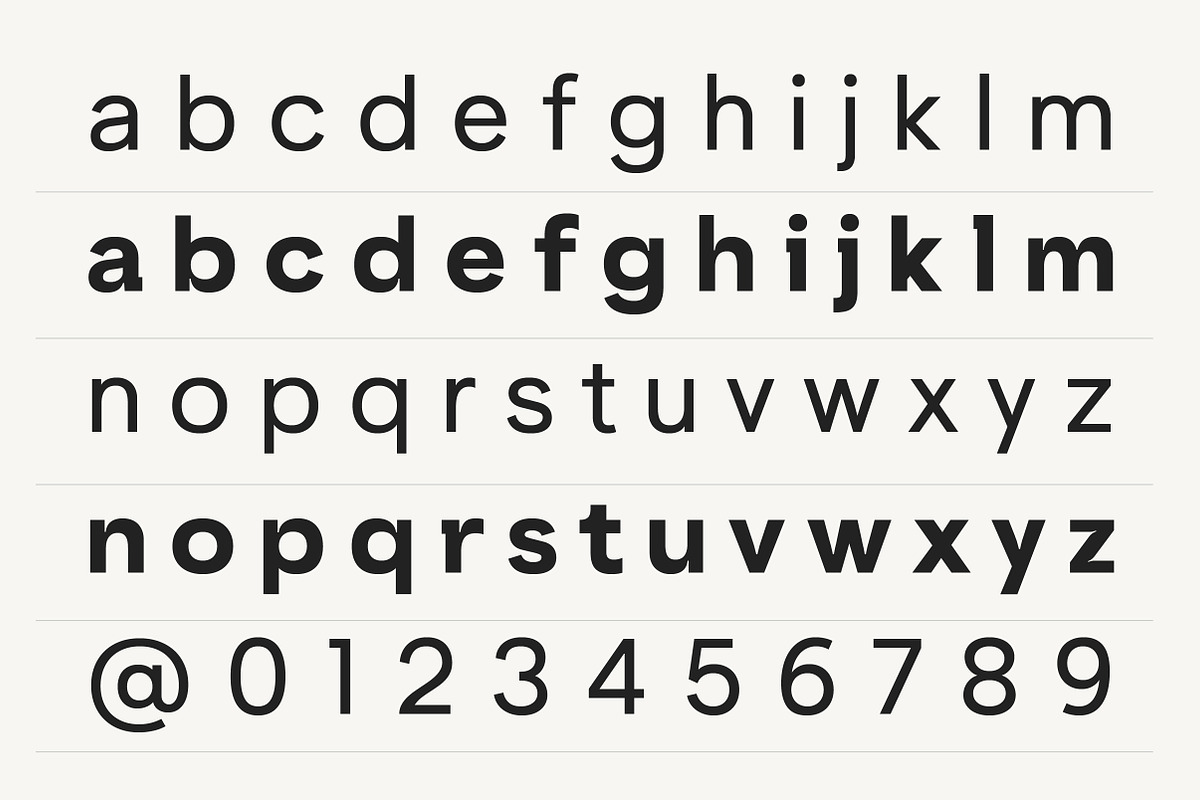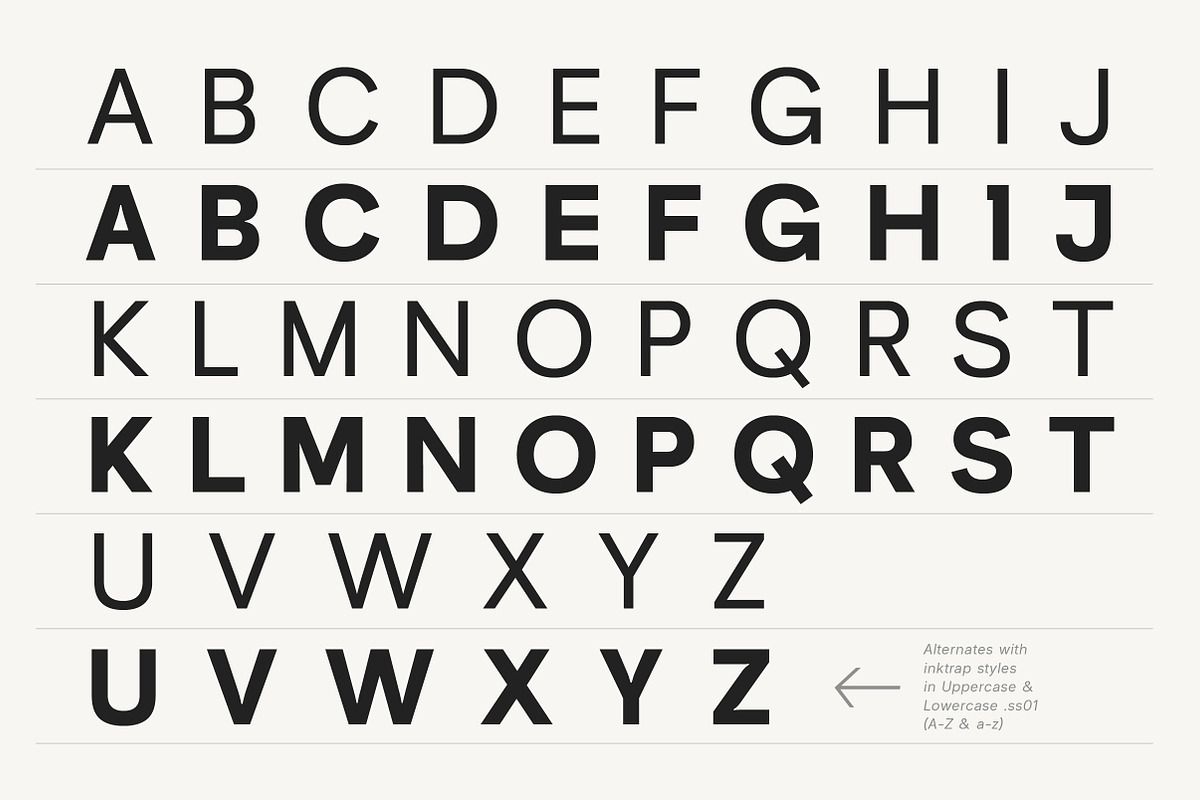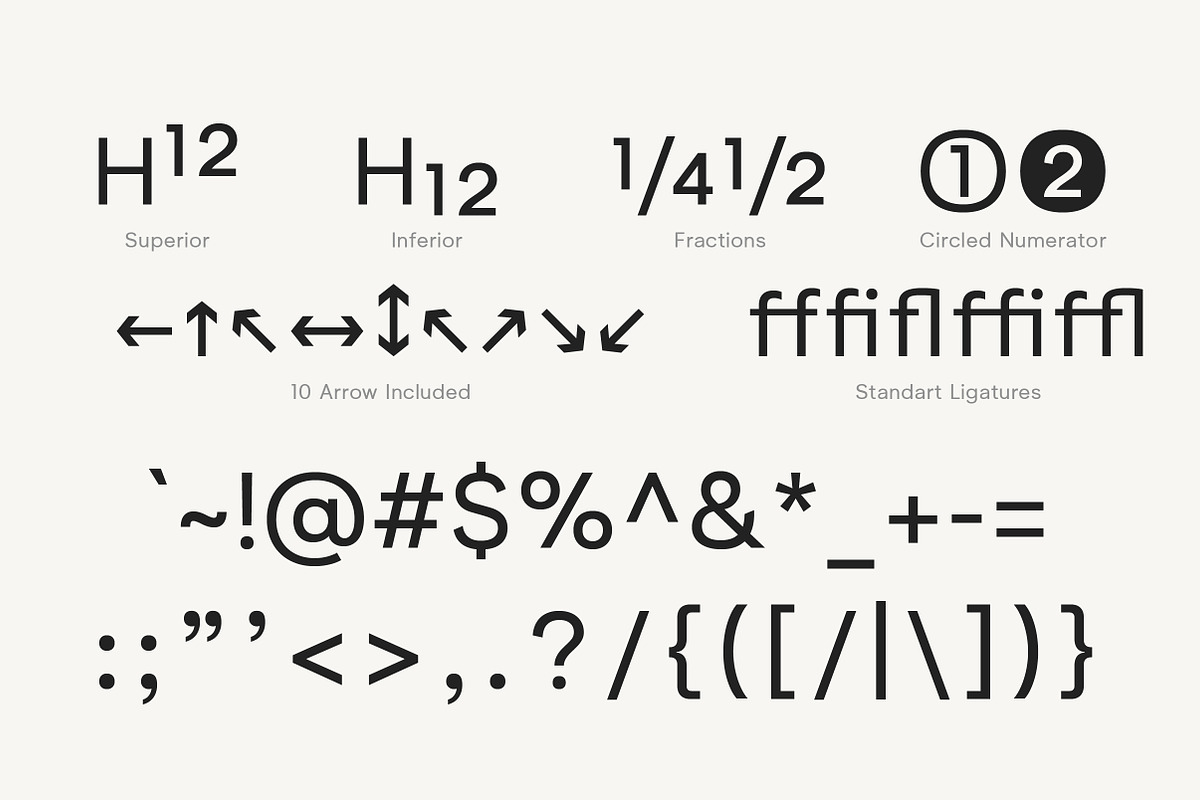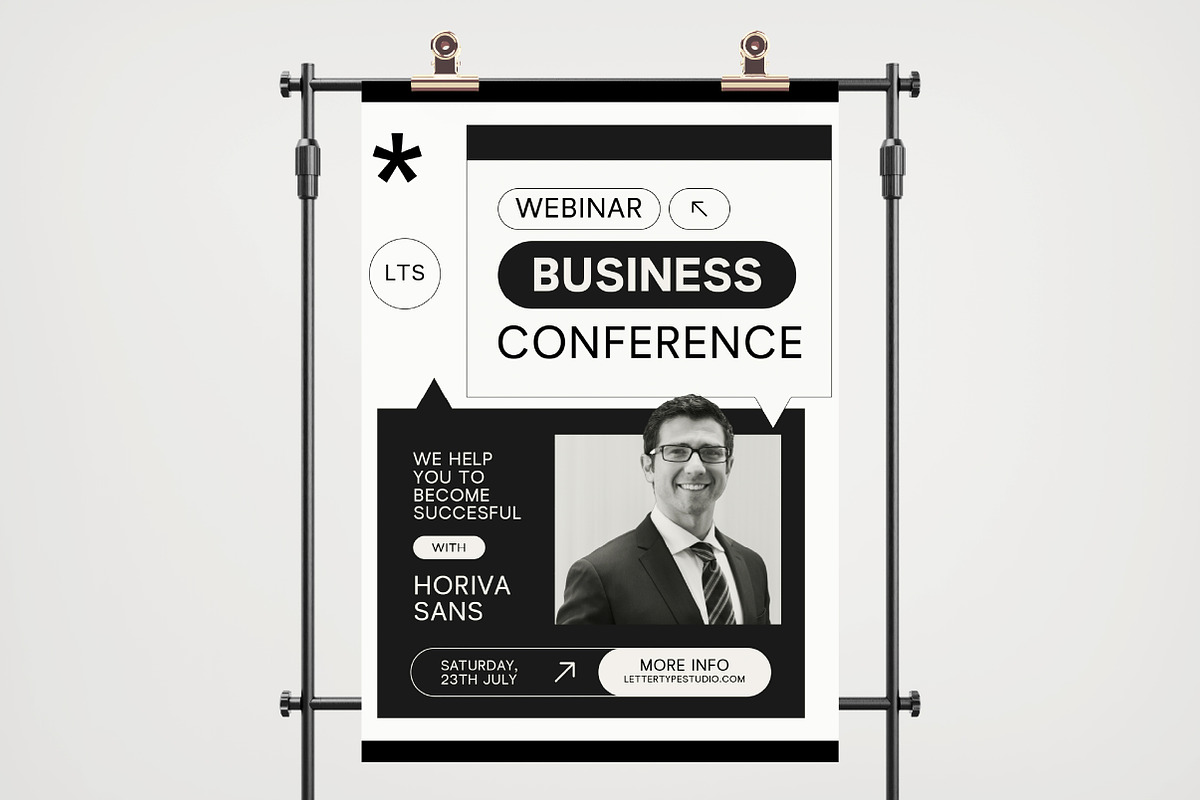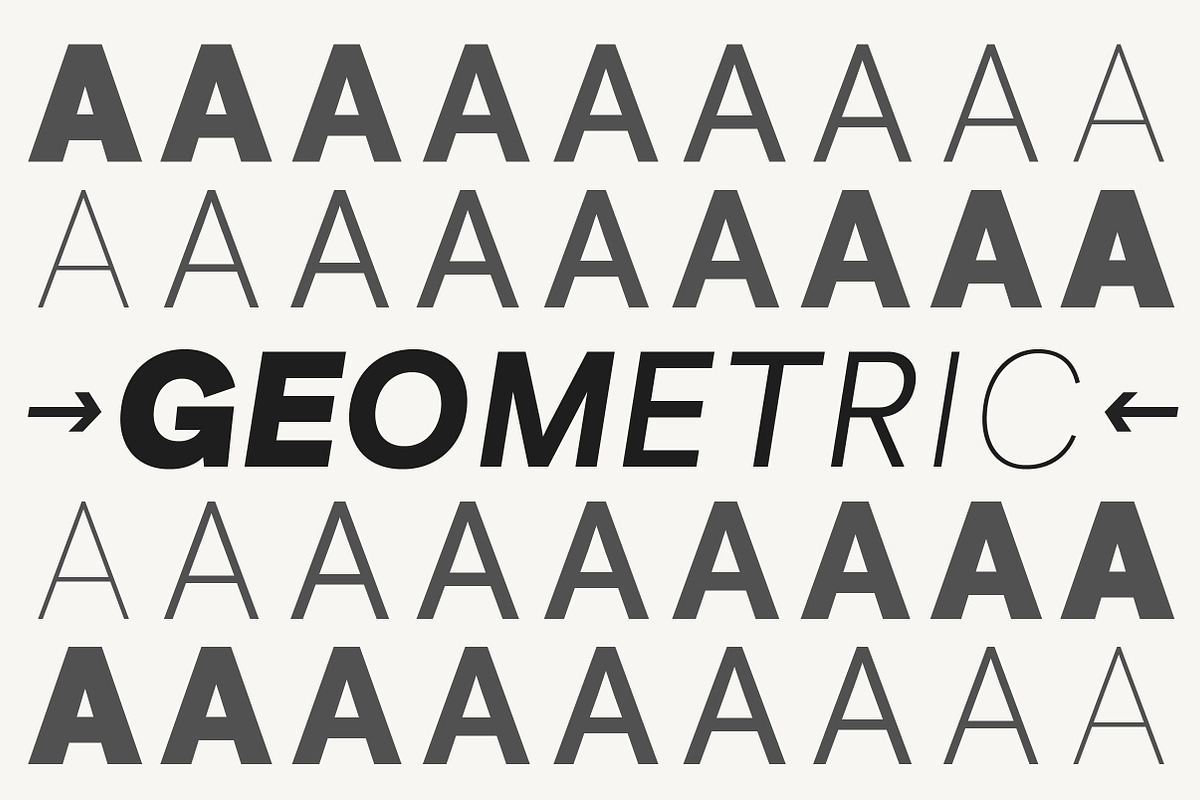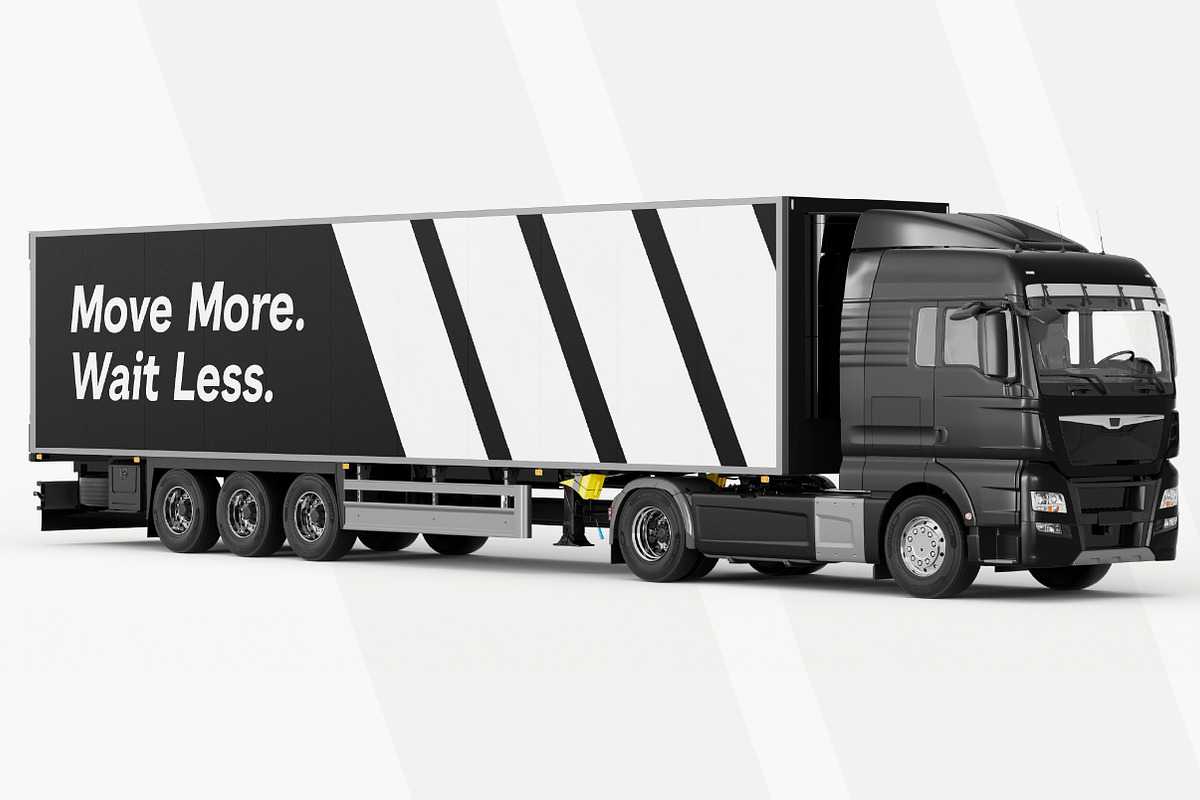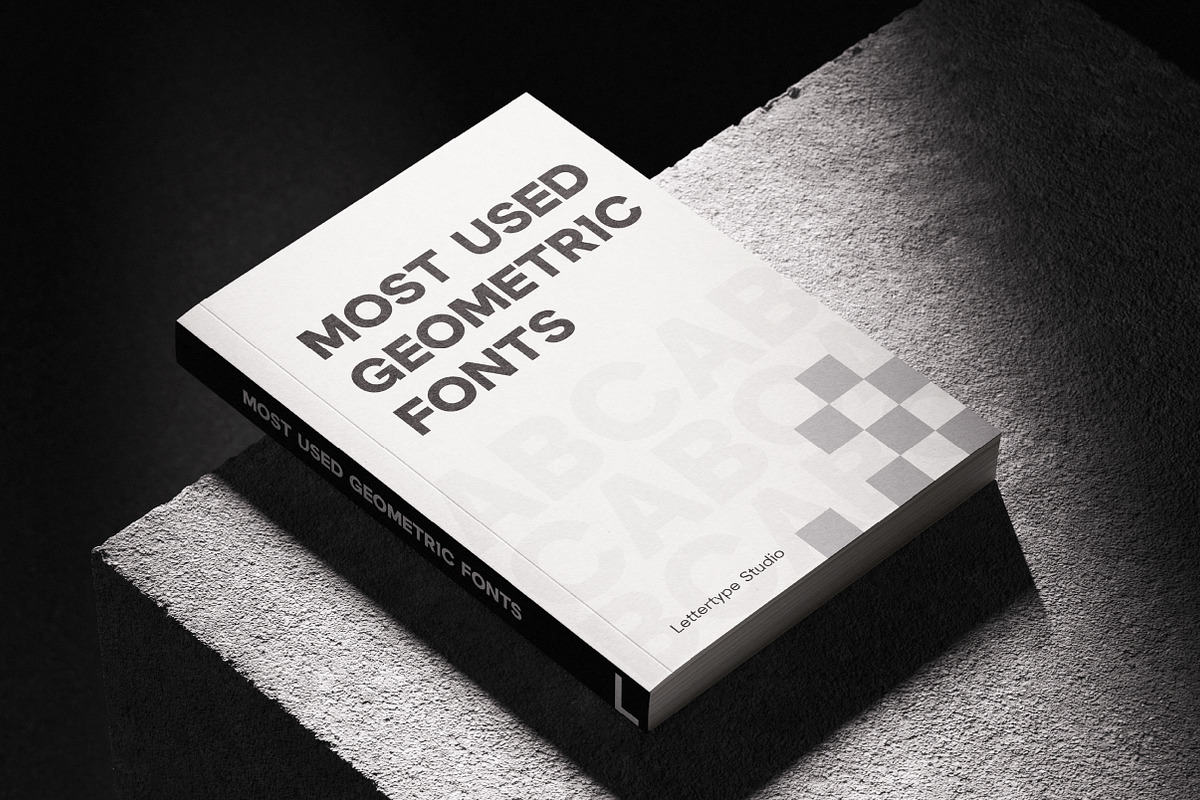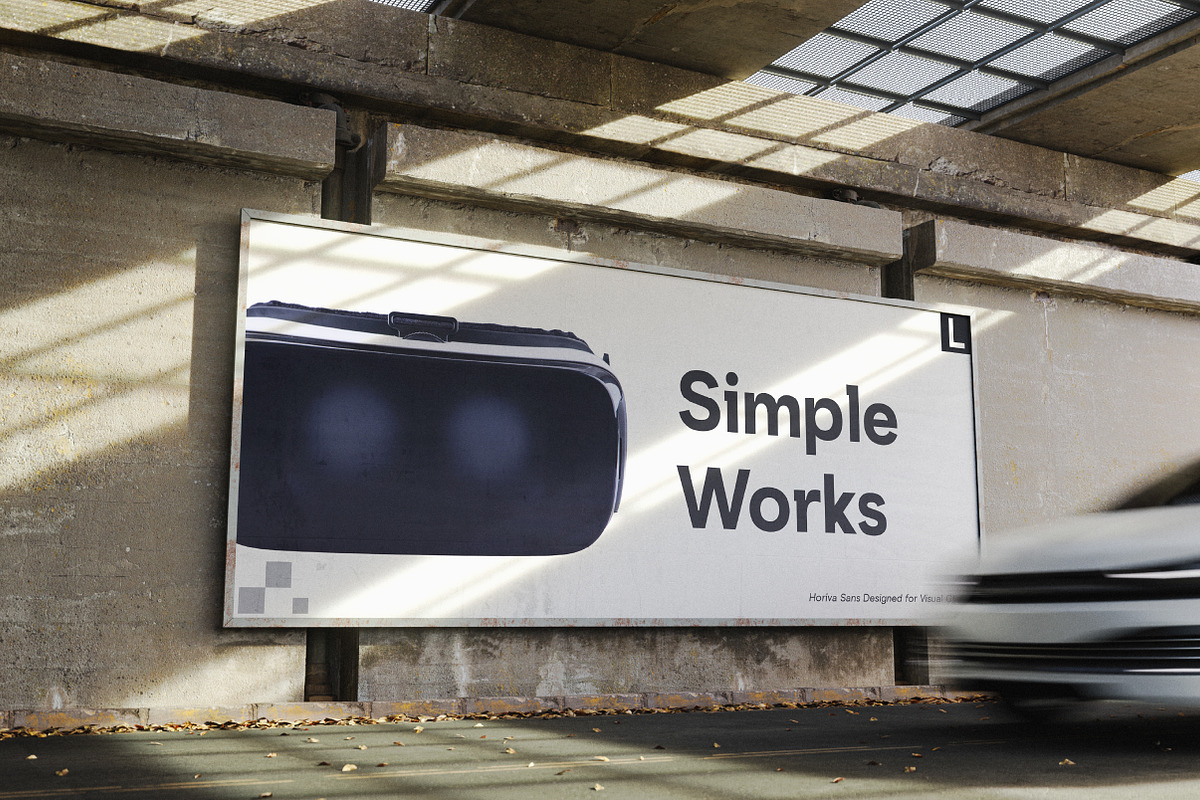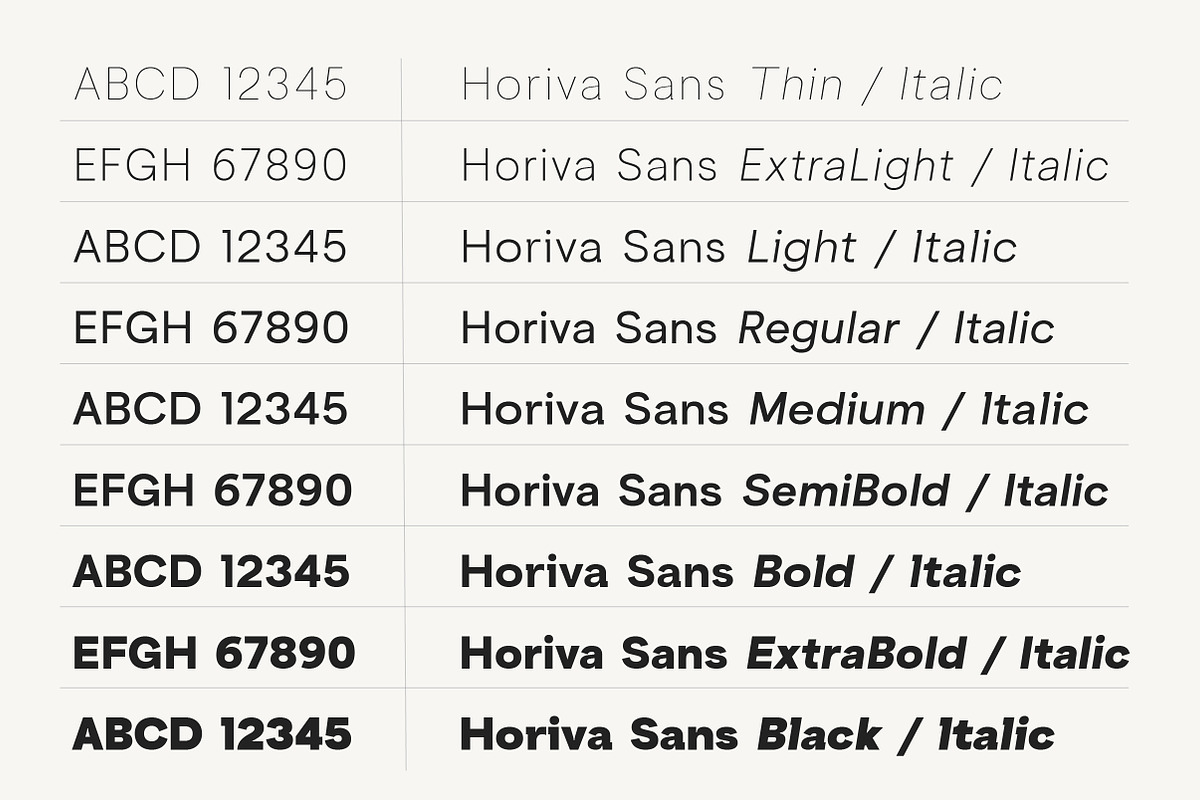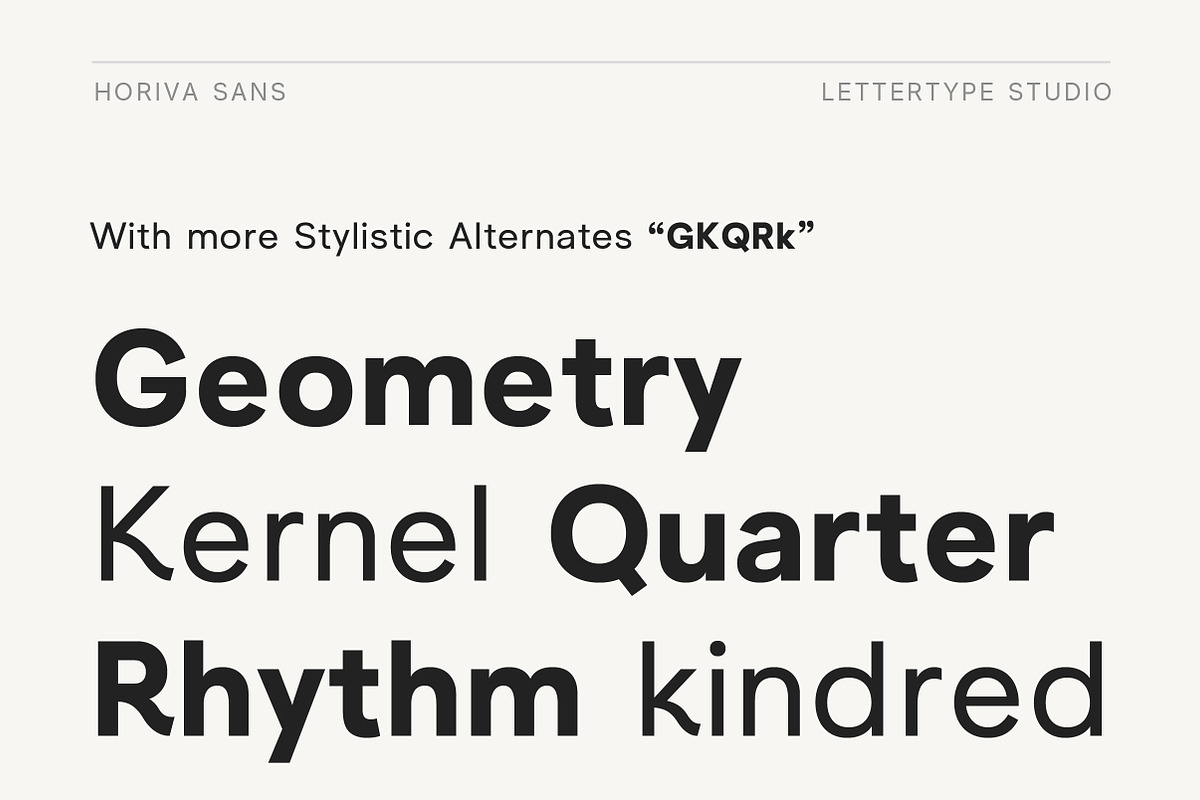
Horiva Sans is a modern geometric sans serif family designed with refined proportions, balanced spacing, and exceptional readability for branding, editorial, interface, packaging, presentations, and corporate design. Carefully developed with optical adjustments and consistent rhythm, Horiva delivers a clean, confident appearance that performs beautifully across both display and text applications.
Featuring 18 styles from Thin to Black with matching italics, Horiva Sans includes 560 glyphs, support for more than 270 Latin-based languages, superior and inferior numerals, circled and negative circled numbers, additional currency symbols, and extensive stylistic alternates across uppercase and lowercase characters. Built for modern designers, it provides both versatility and consistency for professional creative workflows.
Horiva Sans Features:
- 18 Styles
- Upright & Italic
- 560 Glyphs Total
- 270+ Languages Support
- Branding & Visual Identity
- Editorial & Publishing
- UI/UX & Digital Products
- Packaging & Product Design
- Corporate Communication & Presentation